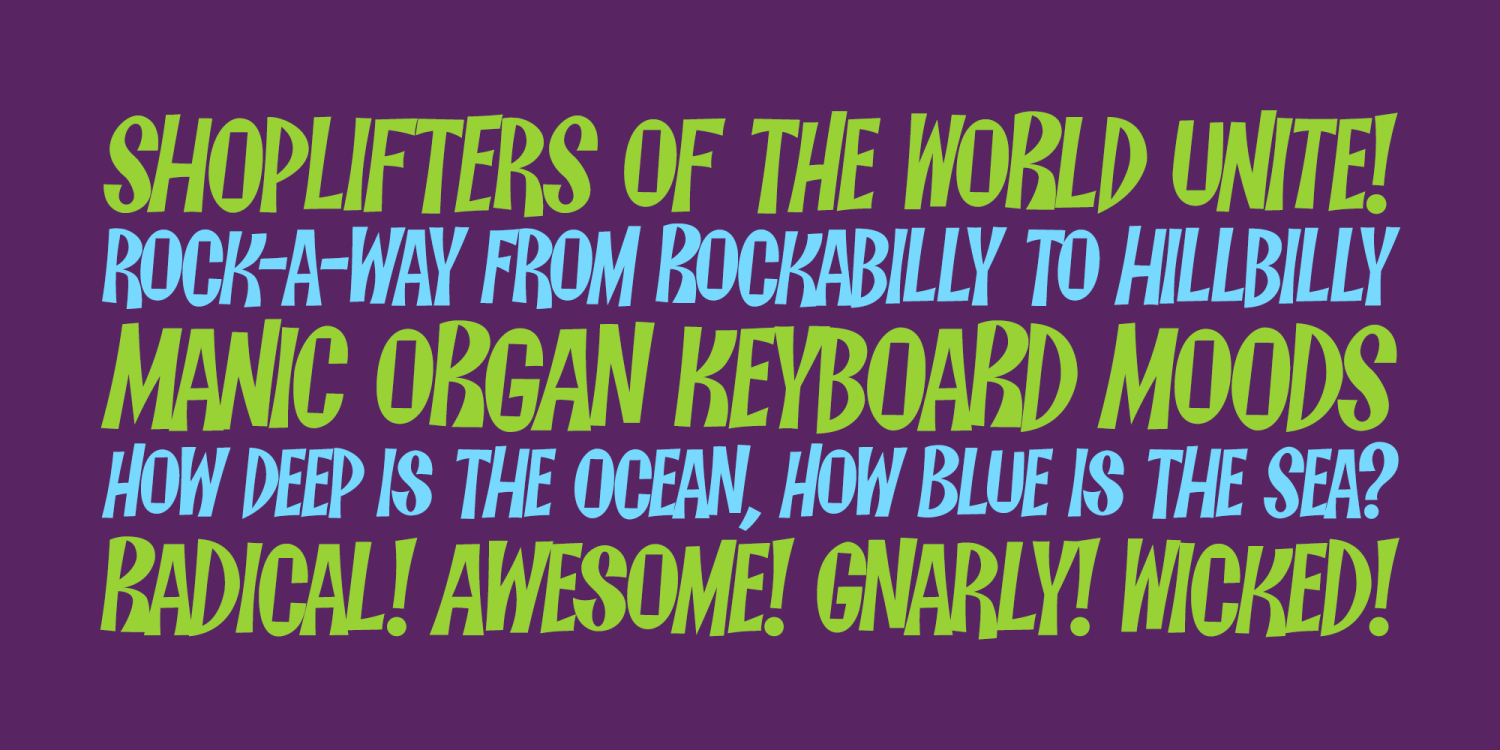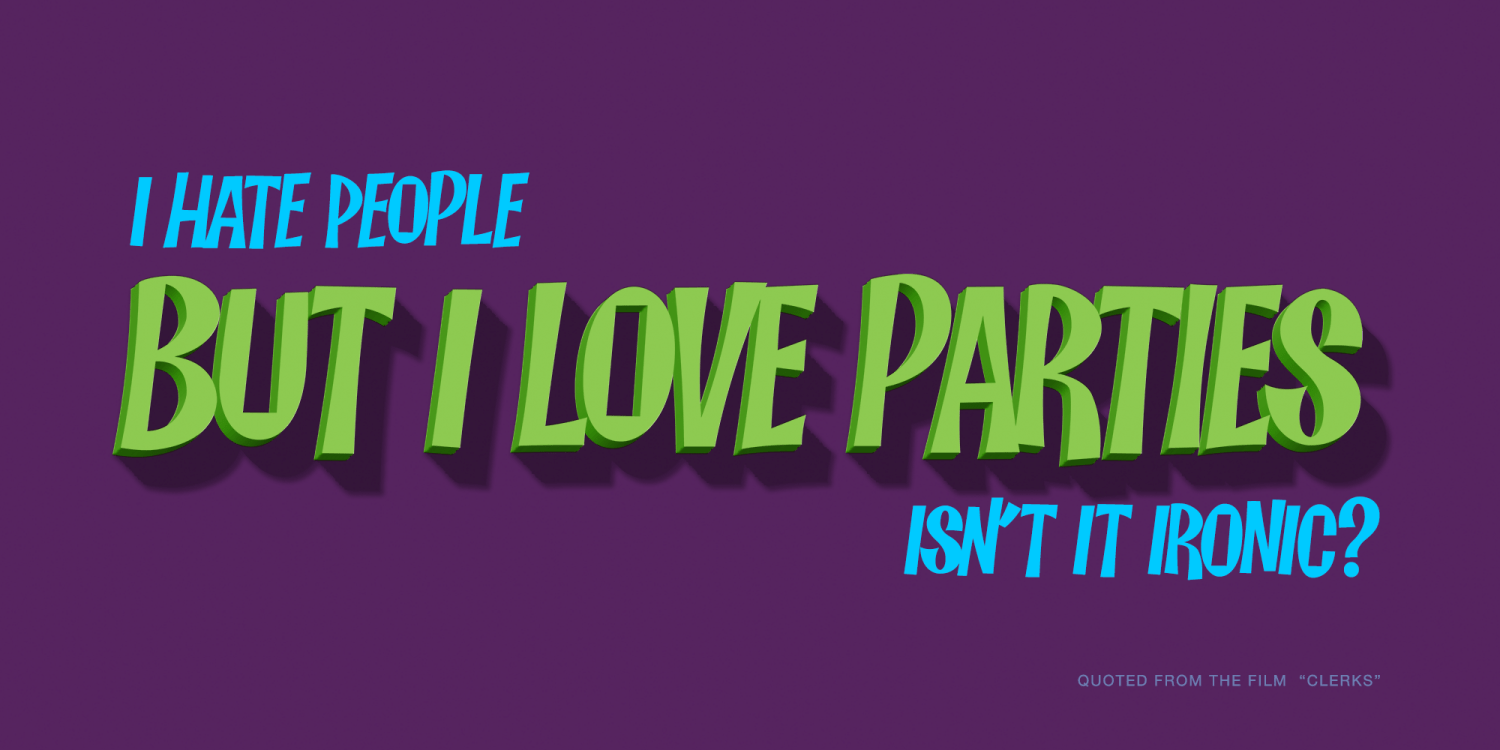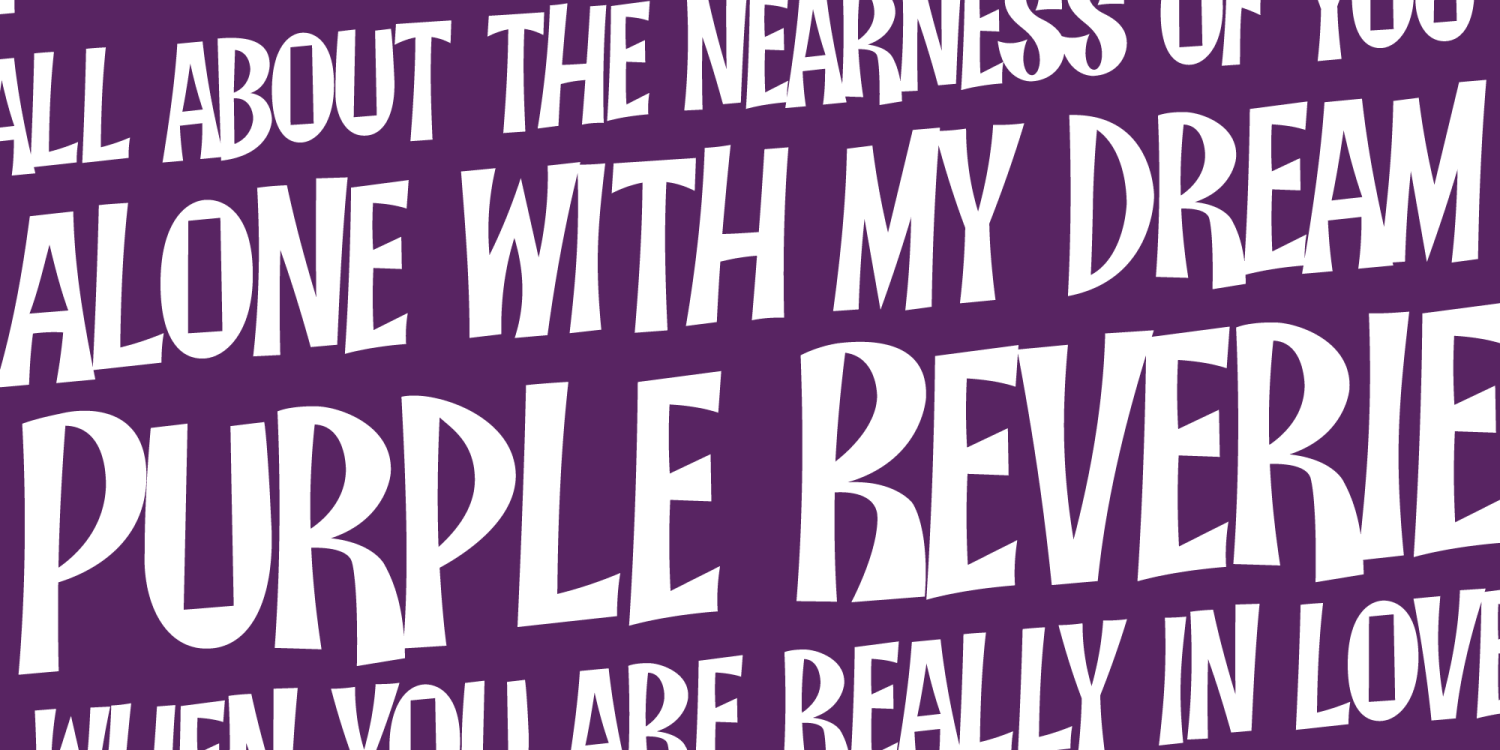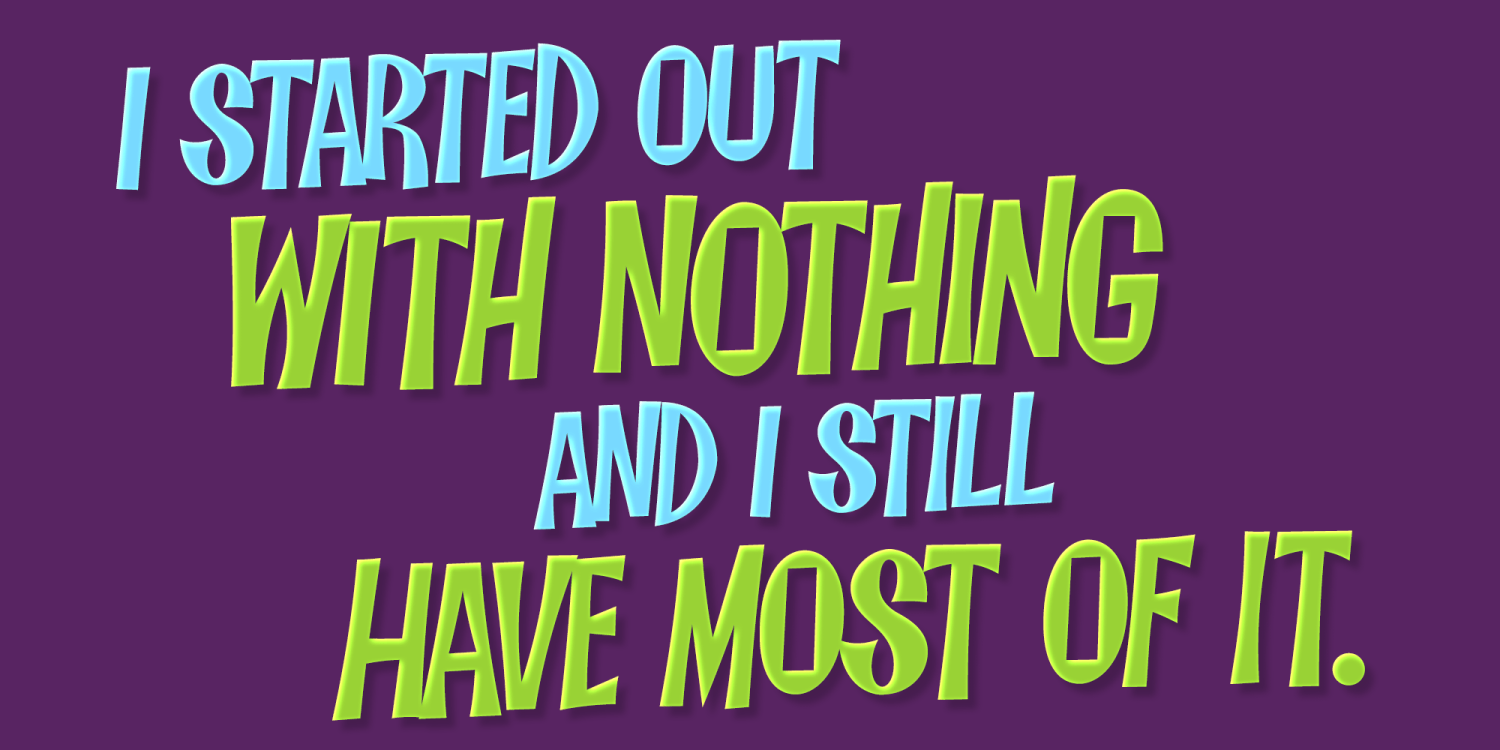
Manic Mood PB
Font Family by Pink Broccoli
An offbeat alternate caps typestyle inspired by the cover of a vintage lp titled, "Organ Moods" by Jerry Thomas. A playful and childish font from a sexy cheesecake album! Go figure.